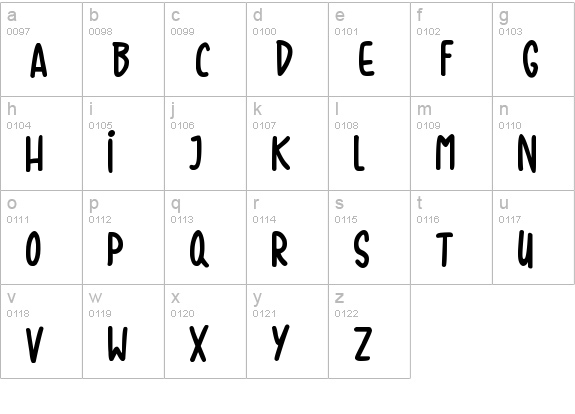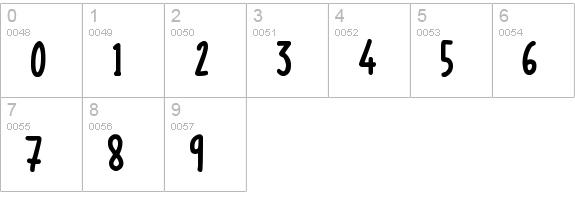
Sudden Desires Font Details
Sudden Desires font is a captivating and versatile typeface that adds a touch of elegance and sophistication to any design project. With its smooth curves and stylish letterforms, this font exudes a sense of modernity and creativity. Whether you're creating a logo, branding materials, or any other creative project, Sudden Desires font is sure to make a lasting impression.